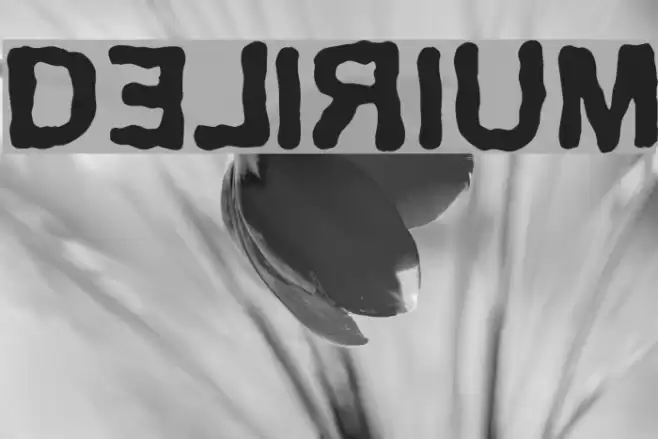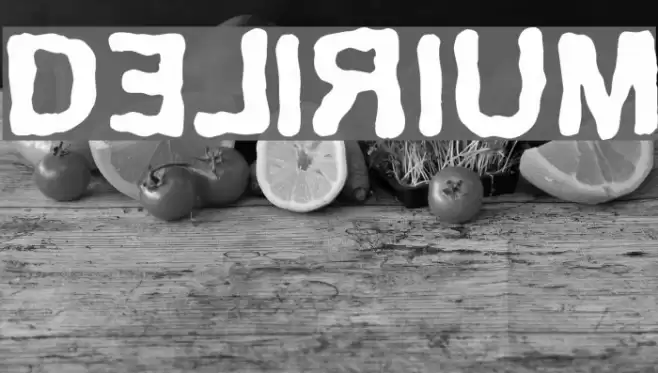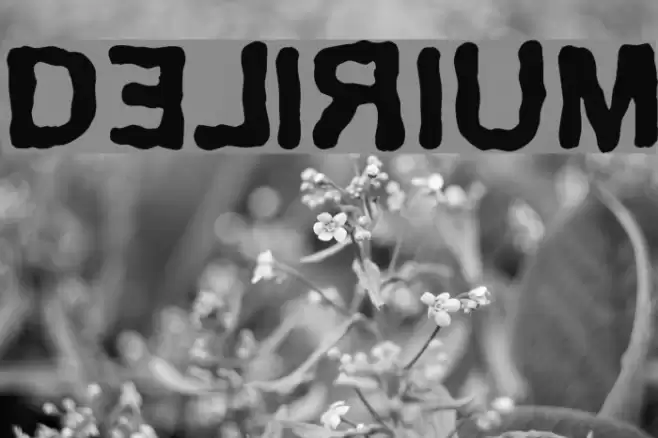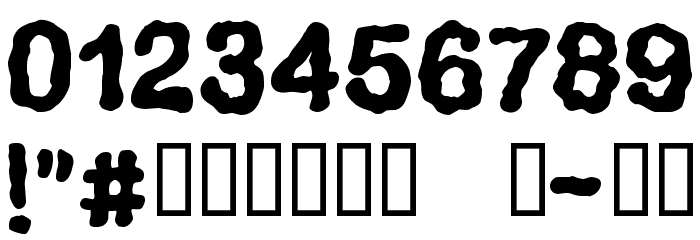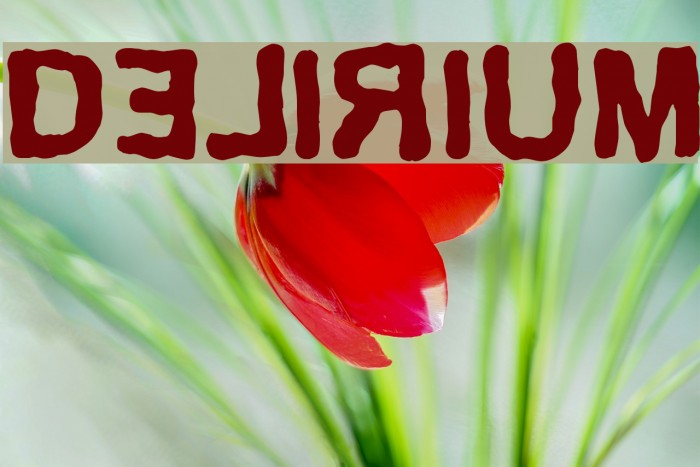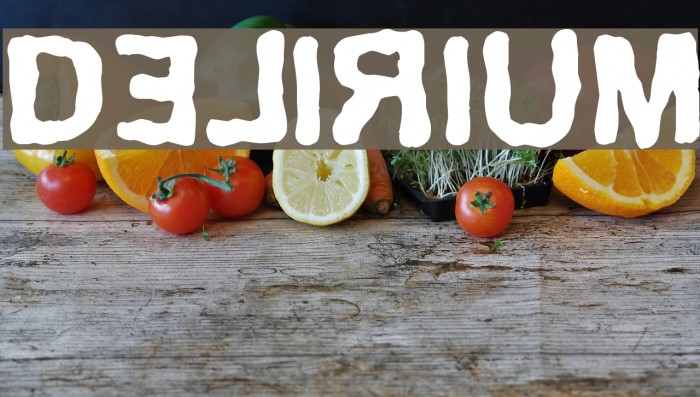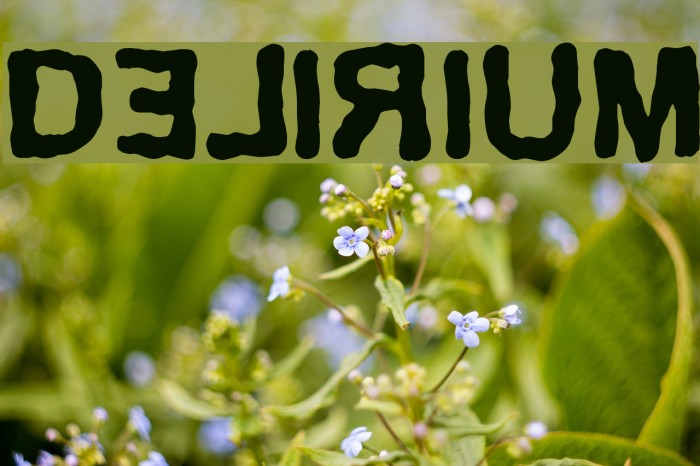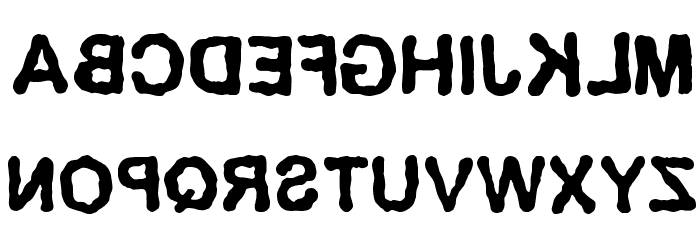
Delirium Font
Delirium Description
This font features a bold and playful design with a hand-drawn aesthetic. The characters have a slightly irregular, organic shape, giving them a whimsical and artistic feel. The strokes are thick and rounded, creating a sense of friendliness and approachability. The numbers and special characters maintain the same playful style, ensuring consistency across all elements. This font is ideal for projects that require a fun and informal touch, such as children's books, posters, or creative branding materials.
A bold, playful font with a hand-drawn, whimsical style from Script fonts.
- Proposed Projects: Ideal for children's books, playful posters, creative branding, and informal invitations.
- Overall Style: Playful, Artistic